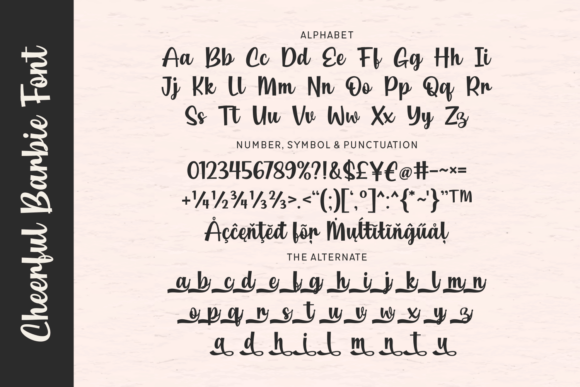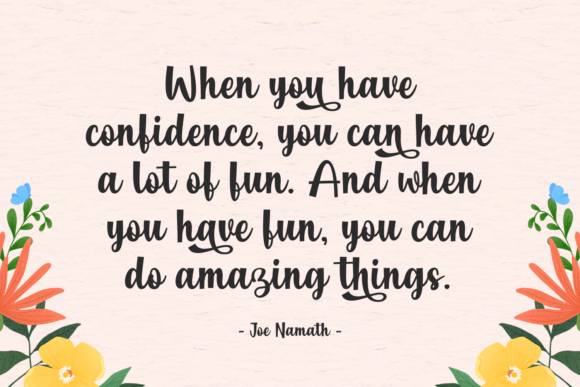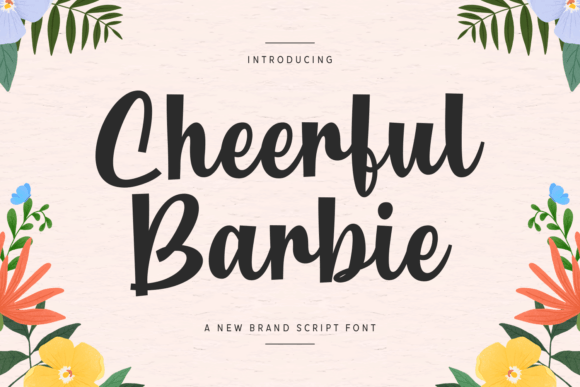
Where Creativity Meets Joy: Discover the Cheerful Barbie Font
You know that moment when a new font sparks your imagination and sets your creative juices flowing? For designers, it’s a thrill that never gets old. For me, it was a chance encounter with the Cheerful Barbie Font that ignited a wave of inspiration. The moment I laid eyes on its elegant, flowing letters, I knew I had to dive in and explore its possibilities.
The Cheerful Barbie Font is a bold script font designed to add a touch of modern chic to any design. Its versatility makes it perfect for creating eye-catching titles, invitations, and quotes. Whether you’re a seasoned designer or just starting out, this font is a valuable addition to your toolkit, offering a stylish flair that’s sure to elevate your work.
- Unique Characteristics: The Cheerful Barbie Font features a playful, cursive script with a cheerful and whimsical feel, making it perfect for creating fun and lively designs.
- Character Set: The font includes a wide range of characters, including uppercase and lowercase letters, numbers, and punctuation marks, as well as some special characters and symbols.
- Font Style: The font has a single font style, but it can be used in a variety of ways to create different effects, such as using bold or italic text to add emphasis or create a sense of movement.
Overall, the Cheerful Barbie Font is a playful and eye-catching choice for designers looking to add a touch of whimsy to their projects. Here are some of its standout features: ✨
- Cute and bubbly feel: The font’s rounded edges and childlike proportions make it perfect for creating a carefree atmosphere.
- Good for headlines: The font’s boldness and size make it ideal for grabbing attention in headings and titles.
- Fun for creative projects: The font’s playful nature makes it a great fit for projects like children’s books, party invitations, and social media graphics.
- Limited legibility: The font’s rounded edges and tight letter spacing can make it difficult to read in larger blocks of text.
- May not be suitable for formal projects: The font’s playful nature may not be suitable for more formal or professional projects.
Overall, the Cheerful Barbie Font is a great choice for designers looking to add a playful touch to their projects. While it may have some limitations, its unique feel and good legibility make it a great option for the right project.
For best results, use the Cheerful Barbie Font in bold or italic text to add emphasis. Experiment with different font sizes and colors to create visually appealing designs.
The Cheerful Barbie Font is perfect for:
- Women’s fashion and beauty blogs.
- Young adult fiction book covers and promotional materials.
Q: What is the recommended font size and style for optimal readability with the Cheerful Barbie Font?
The recommended font size for optimal readability with the Cheerful Barbie Font is between 12-24 points, depending on the design context and intended audience. For best results, use the font in its standard style, without bold or italic formatting, unless specifically intended for emphasis. This will help maintain the font’s cheerful and playful character while ensuring readability.